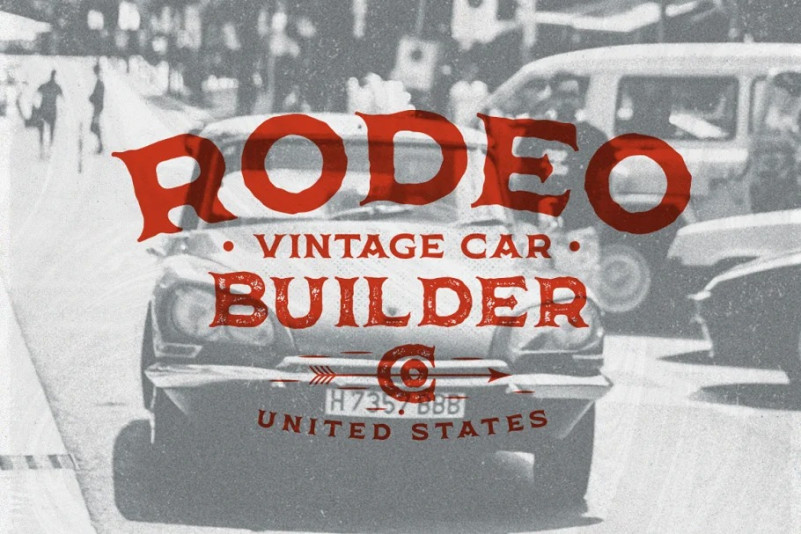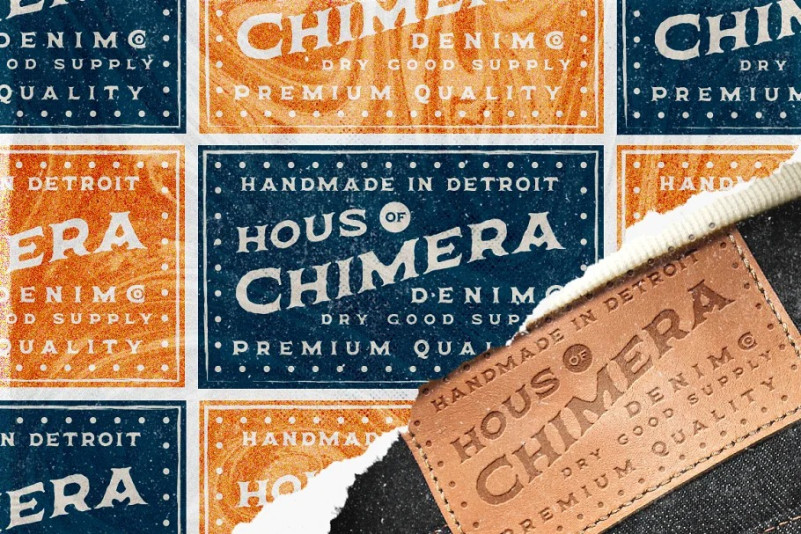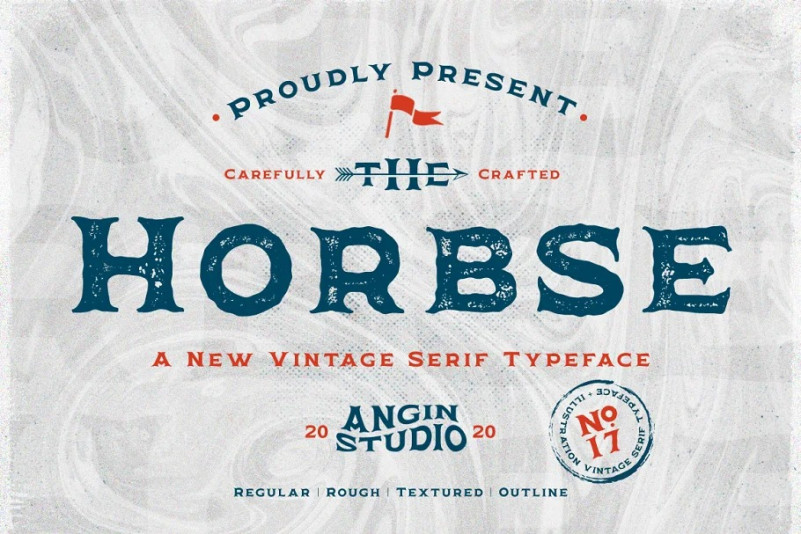
Horbse Font
Horbse Font, a vintage serif typeface inspired by old sign, vintage brand tag, and packaging. Horbse comes with 4 style and extra illustration, perfectly used for you’re T-shirt, Packaging, Posters, Logo, or having fun with it create things we didn’t expect with all your creativity.
– Horbse Regular – Horbse Rough
– Horbse Textured – Horbse Outline
– Bonus Vintage Illustration